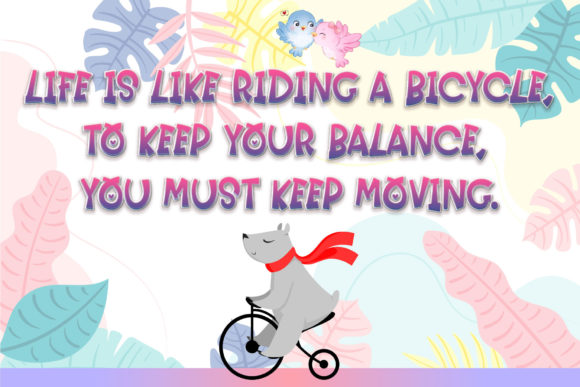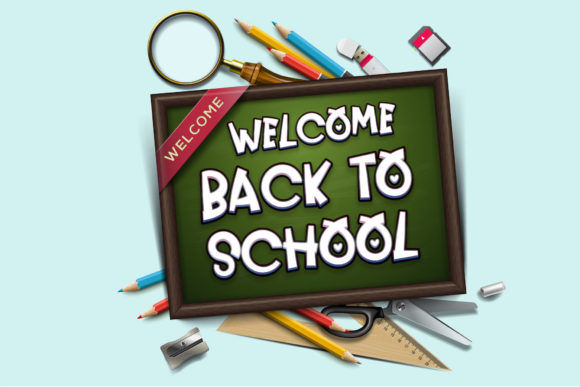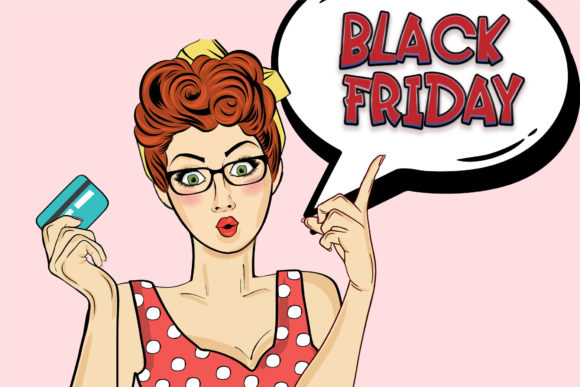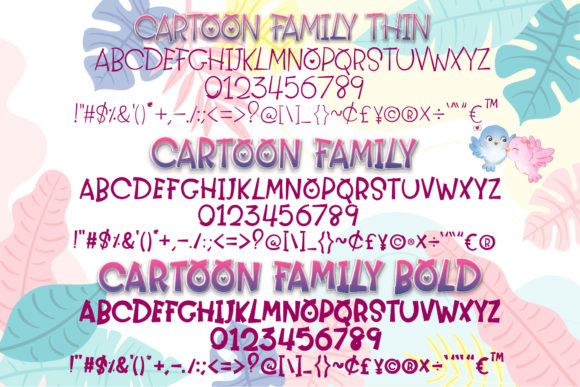
Cartoon Family Font
Cartoon Family is a cool, friendly and fun display font. It embodies playfulness and authenticity and is the perfect choice for any children activity or school project. Add this chunky lettered font to your designs and notice how it makes them come alive!